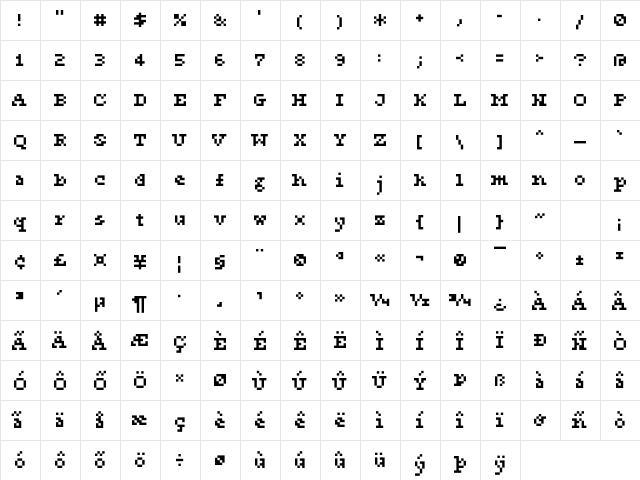
Microserif Medium
Design Context for Microserif Typeface
Microserif brings classic typographic sensibility to the table — its serifs and measured letterforms reflect centuries of print heritage.
Pro Tip: Use Microserif for editorial body copy and considered headline work. Pair with a neutral sans for UI elements or captions to create a classic hierarchy.